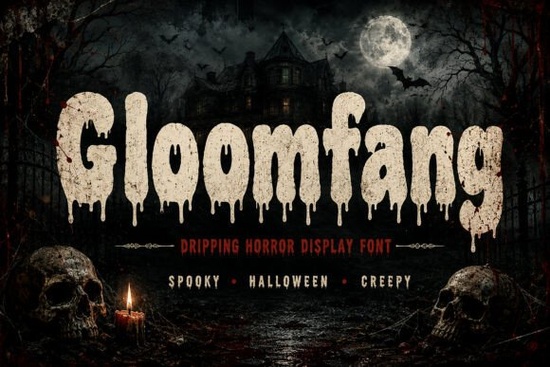
When you need a typeface that instantly sets a dark mood, finding the right one can be tricky. You want something that screams horror without becoming unreadable. The Gloomfang Font is designed exactly for this purpose. It brings a chilling aesthetic to your projects with bold letterforms and dripping edges that look like they belong on a classic movie poster. Whether you are designing for Halloween or creating spooky merchandise, this typeface helps you capture that cinematic terror effectively.
Many creators struggle to balance style and legibility. A font might look scary, but if customers cannot read the text, it fails its purpose. This typeface manages to keep things clear while maintaining an eerie hand-drawn feel. It works well for titles, logos, and short phrases where you need to grab attention immediately. The dripping details add texture without cluttering the design, making it a solid choice for both digital and print media.
What Makes This Font Stand Out for Horror Projects?
The main appeal lies in its specific design details. Unlike standard horror fonts that might look too messy, this one keeps the structure intact. The edges look worn and dripping, suggesting decay or slime, which fits perfectly with haunted house themes. It captures the essence of vintage horror posters where the typography was just as important as the imagery.
Designers often look for variety within a single family. While this is a display font, it pairs well with simpler sans-serif bodies. If you need something more geometric for supporting text, you might explore options like this geometric display style to create contrast. The key is to let the horror font handle the headlines while keeping the informational text clean. This ensures your message gets across without the spooky vibe overwhelming the content.
Where Can You Use This Typeface Effectively?
There are several practical applications for a font like this. Print-on-demand sellers can use it for T-shirts, mugs, and tote bags aimed at the Halloween market. It also works well for YouTube thumbnails where high contrast is necessary to stop the scroll. Game developers might use it for title screens or logo designs to set the tone before the player even starts.
Small businesses hosting seasonal events can use it for flyers and invitations. Imagine a haunted hayride poster using these bold, dripping letters. It instantly tells the viewer what to expect. For those who prefer a softer approach to seasonal design, you might consider a cuter alternative for children's parties, but for pure fear, this choice is superior. It delivers a haunting visual identity that grabs attention instantly.
How Do You Pair It With Other Styles?
Mixing fonts is an art. Since this typeface is heavy and textured, it needs room to breathe. Avoid pairing it with other highly decorative fonts. Instead, choose something neutral. A clean sans-serif like this modern option works well for body text. This combination ensures readability while keeping the horror vibe focused on the headlines.
If you are creating a brand that spans different moods, having variety helps. You might use a script font for signatures or elegant details. For example, this elegant style could work for a gothic romance brand that also sells horror items. The contrast between the dripping horror text and a refined script can create a unique, sophisticated dark aesthetic.
For playful projects that still need a display font, you might look at this fun alternative. However, for strict horror themes, sticking to a dedicated typeface like Gloomfang is better. It ensures your branding remains consistent and true to the genre. Consistency helps customers recognize your work, whether they see it on a social media post or a physical product.
Starting with a solid typeface sets the foundation for your entire project. By choosing a font that aligns with your theme, you reduce the need for extra graphics. The right typography does half the work for you, conveying emotion before the viewer reads a single word.